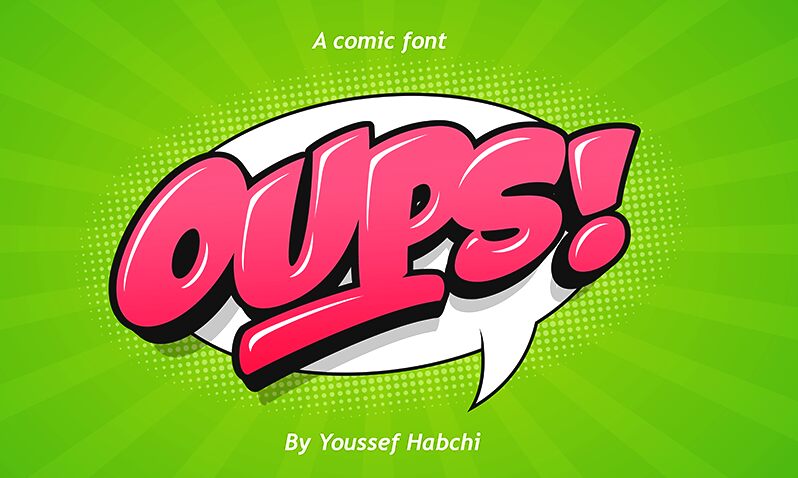
Oups-Clean
Oups Clean font by Youssef Habchi is a free bold comic display font. Part of the Oups family, it stands out with plump, brushy curves and tight, bouncy rhythm—like marker lettering that’s been polished until every edge feels smooth and inky. The heavy strokes and squashed counters create instant impact while keeping a friendly, high-energy tone that reads fast at a glance.
Using Oups Clean, headlines jump off the page: think event posters, snack packaging, kids’ book covers, YouTube thumbnails, streetwear logos, stickers, and playful app banners. This free font’s compact spacing packs a punch in short words, while its rounded forms keep things approachable. Pair it with a crisp grotesk for body text, and give it a touch of extra tracking at large sizes to let the shapes breathe.